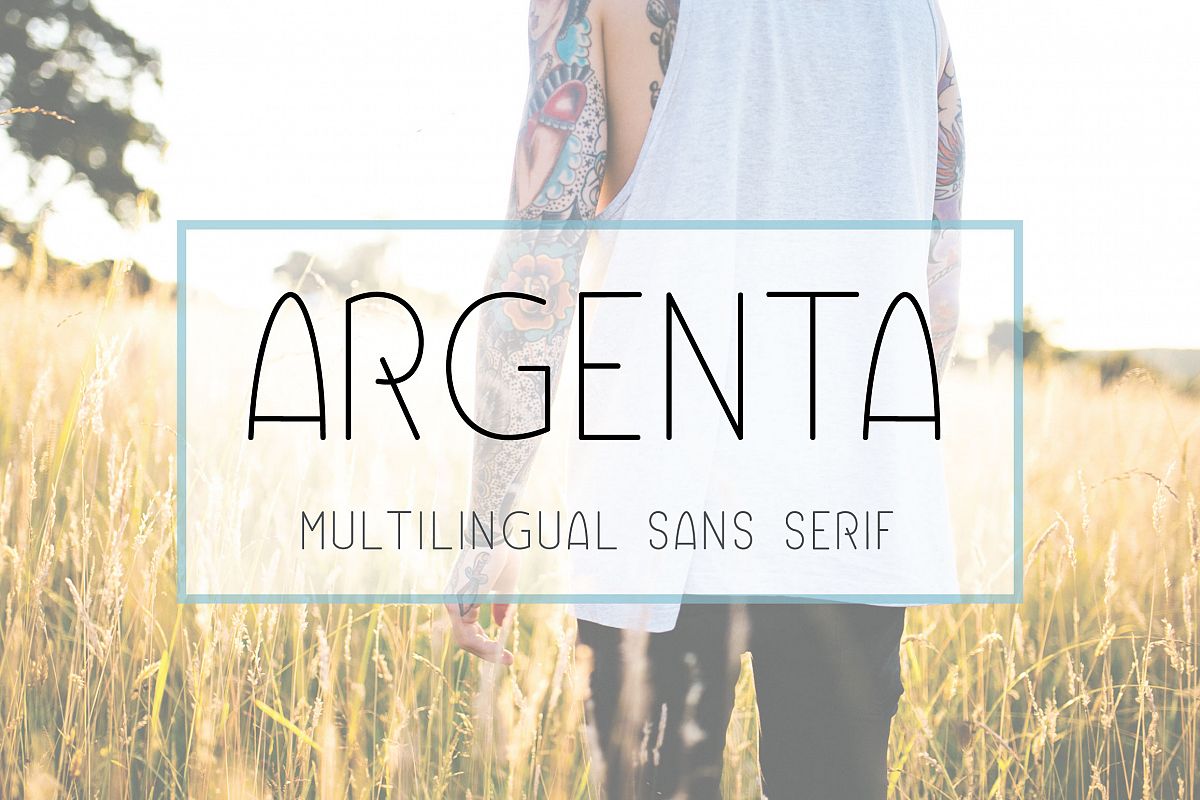
Argenta | Multilingual Sans Serif
Argenta is an elegant, friendly and versatile multilingual sans serif font with soft, rounded edges. It is easily readable that's why it is perfect for longer texts, quotes but also for wedding invitations and menus.
It matches beautifully with scripts fonts too. It comes with extensive language support.